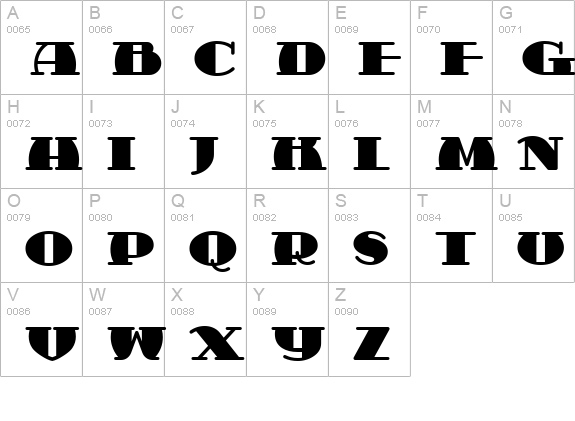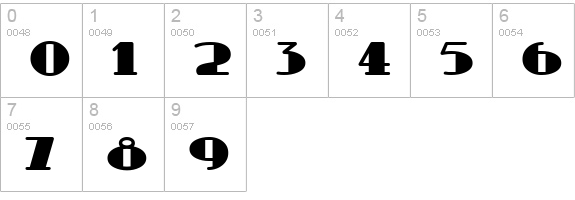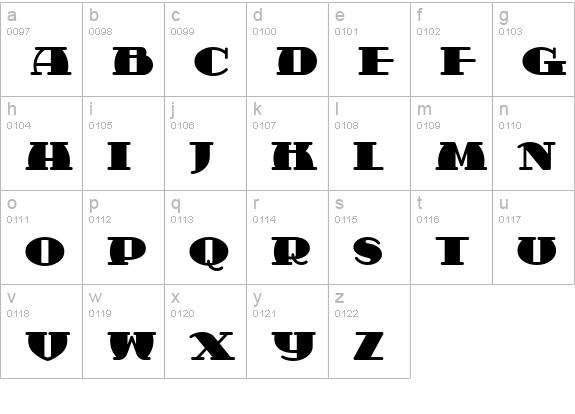
Sabrina Zaftig NF Font Details
Introducing Sabrina Zaftig NF, a beautifully designed font that embodies elegance, sophistication, and timeless charm. With its curvaceous and voluptuous letterforms, this font exudes a sense of femininity and grace, making it perfect for any project that requires a touch of luxurious allure. Sabrina Zaftig NF was meticulously crafted with attention to detail, ensuring each letter flows seamlessly into the next, creating a harmonious and visually pleasing text. The generous curves and delicate serifs add a touch of refinement, making this font a standout choice for branding, invitations, logos, and editorial designs. This font's versatility knows no bounds, as it effortlessly adapts to various styles and themes. Whether you're aiming for a classic and sophisticated look or a more modern and playful vibe, Sabrina Zaftig NF will exceed your expectations, elevating your designs to new heights. The best part? Sabrina Zaftig NF is available for free, allowing you to add this stunning font to your collection without breaking the bank. Simply head over to FontsMarket.com, where you can easily download and start using this font in no time. So, if you're searching for a font that combines elegance, grace, and versatility, look no further than Sabrina Zaftig NF. Download it now and let its timeless beauty enhance your next project.